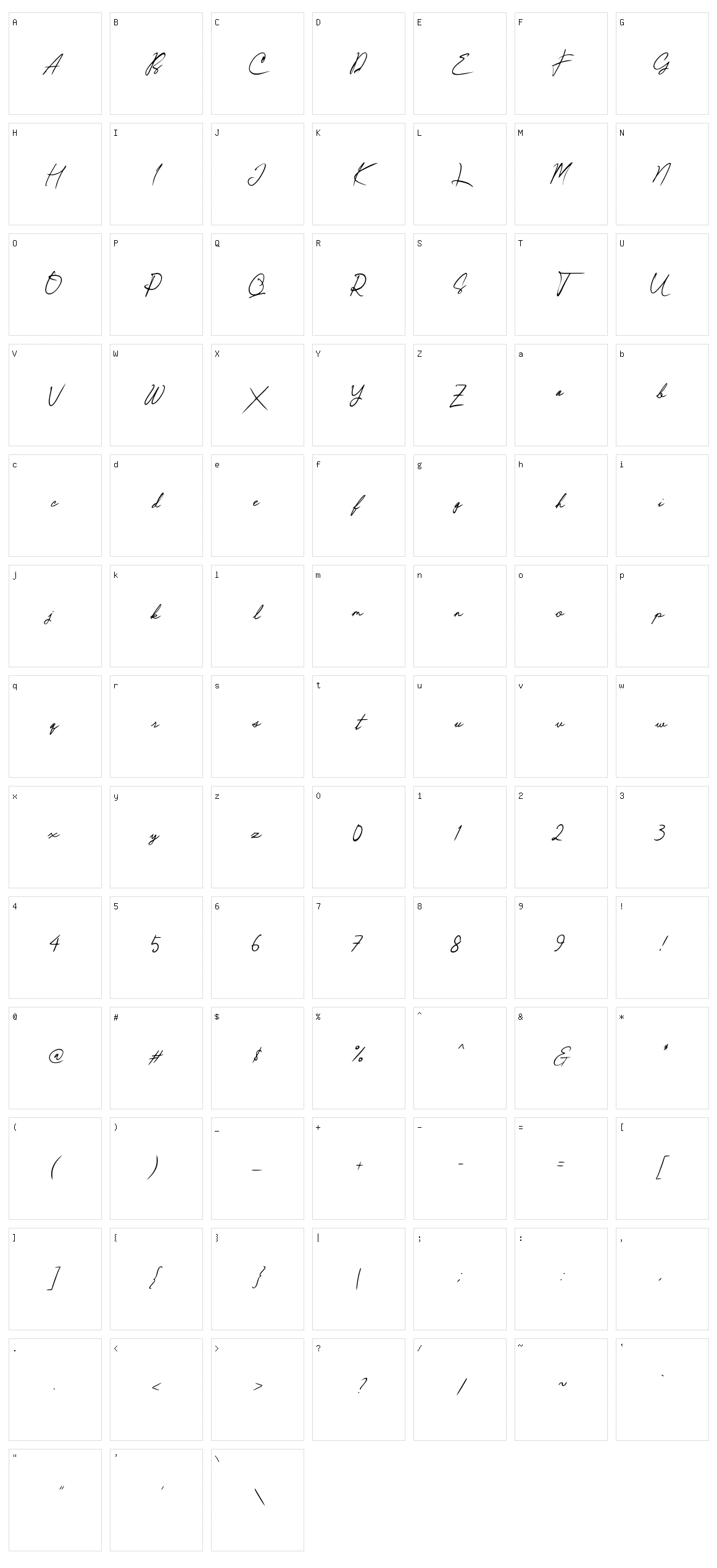
The free font Upil Kering is carefully designed by Ali Hamidi, showcasing a thoughtful balance of creativity and usability and falls under the Script font style. When you download the ZIP file, it contains only 98.51 KB of font files, making it lightweight and quick to download. Please review the license details below to understand permitted usage and distribution rights. If license information is not available, we recommend using this font for personal projects only or contacting the author directly for commercial usage permissions.